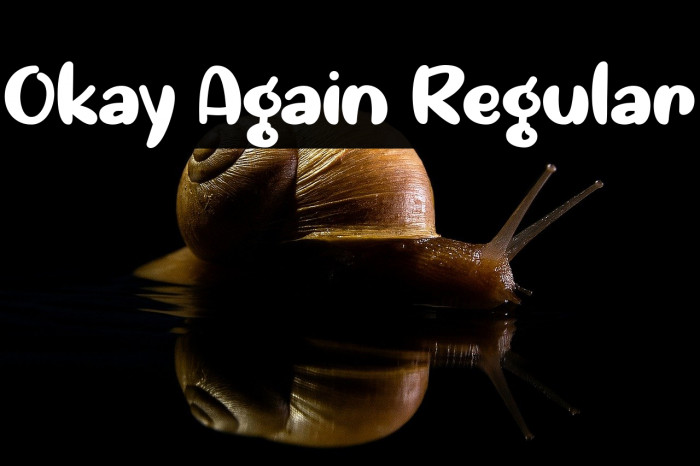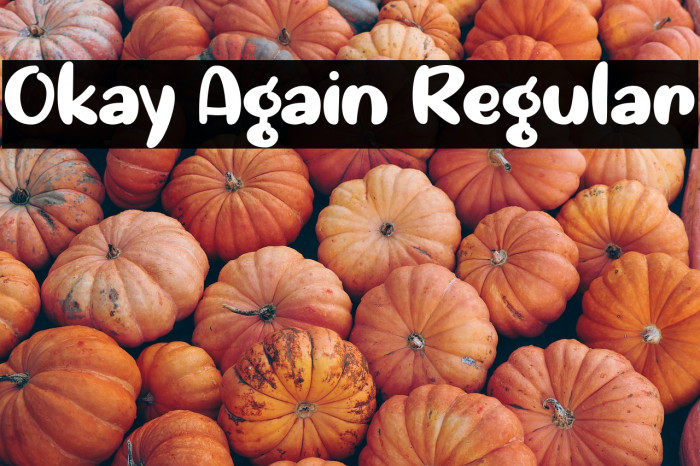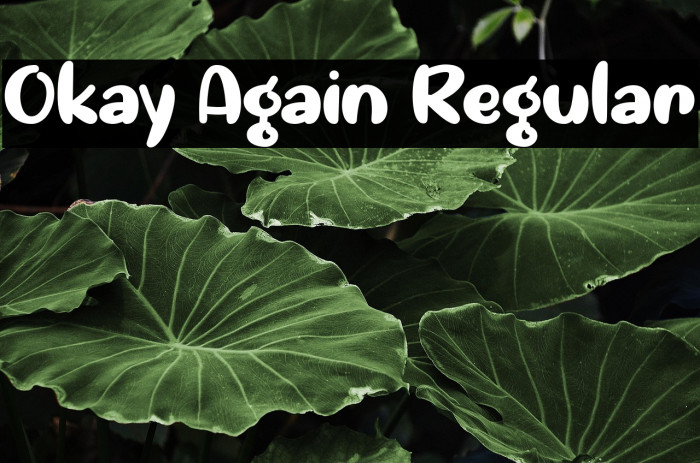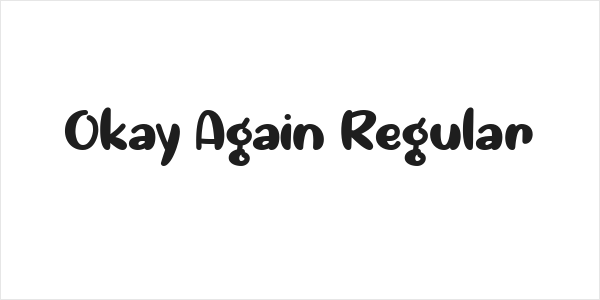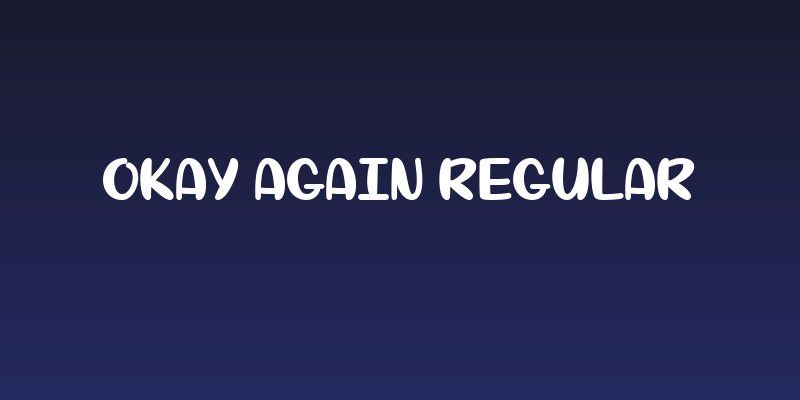
Okay Again Regular Font
Okay Again Regular Description
This font features a playful and bold style with rounded edges and a handwritten feel. The characters are thick and have a consistent weight throughout, giving it a friendly and approachable appearance. The uppercase and lowercase letters maintain a uniform style, with slight variations that add to its charm. The numbers and special characters are designed to match the overall aesthetic, ensuring a cohesive look across all text. This font is highly legible and stands out due to its unique, informal style.